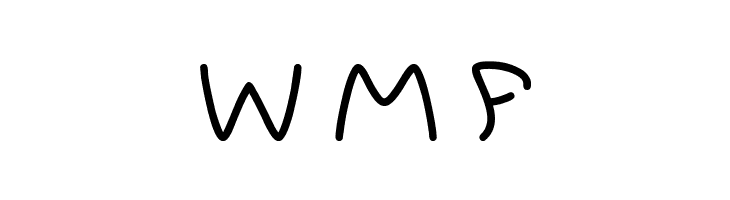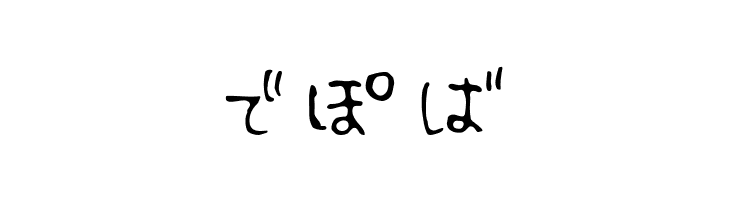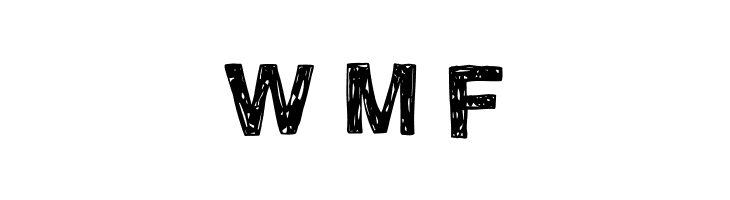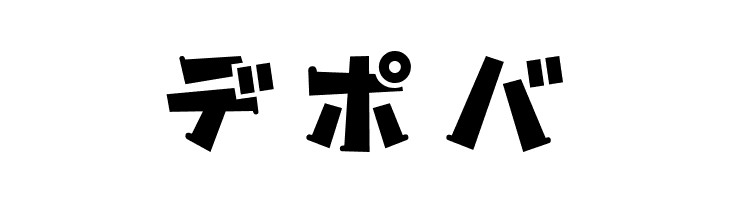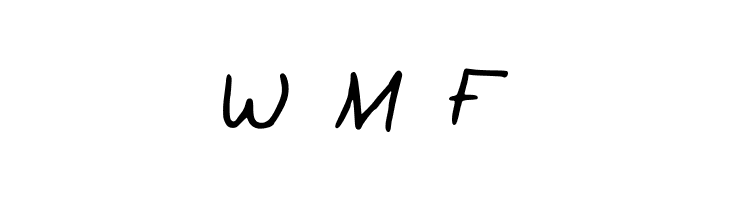
A playful, handwritten font with bold, rounded characters and a youthful flair.
A modern, geometric font with rounded edges and a condensed style.
A bold, cursive handwritten font with a fluid and connected style.
A bold, hand-drawn font with a playful and artistic style.
A bold, angular font with a playful and dynamic style.
A bold, playful font with thick, rounded strokes and a whimsical style.
A playful handwritten font with smooth, rounded strokes and a casual style.